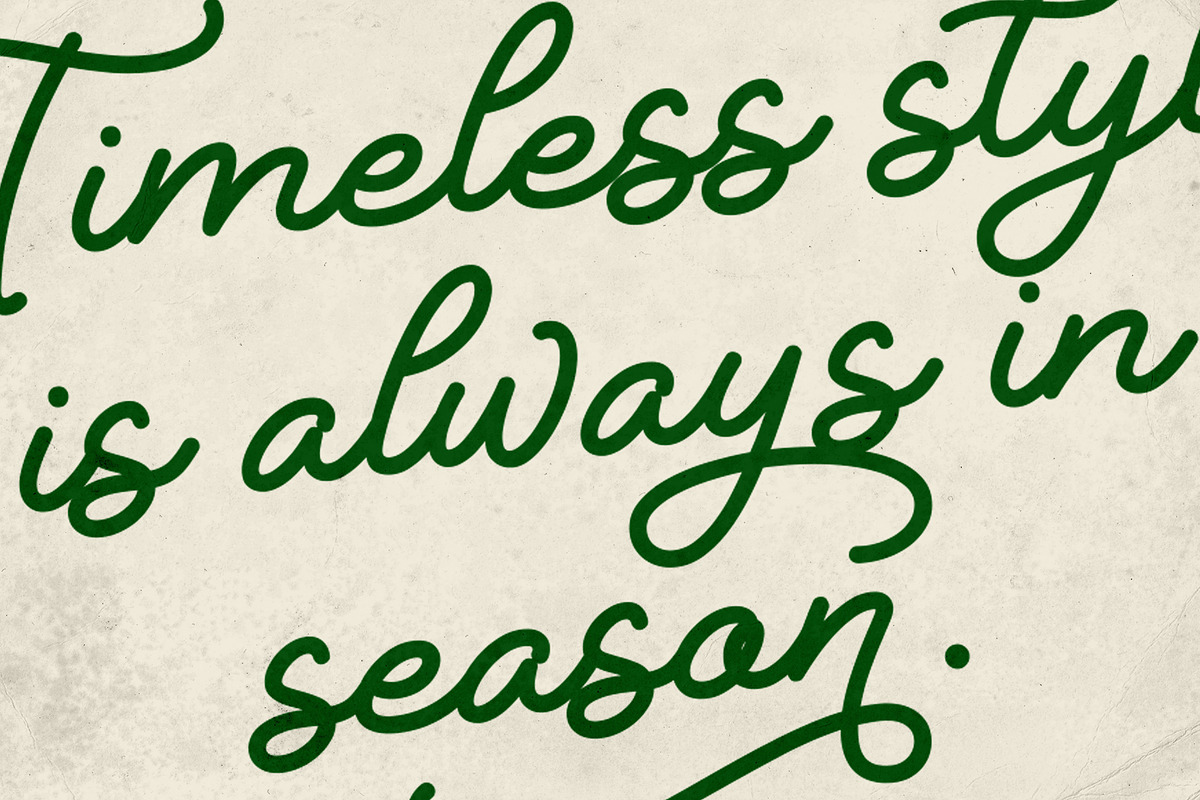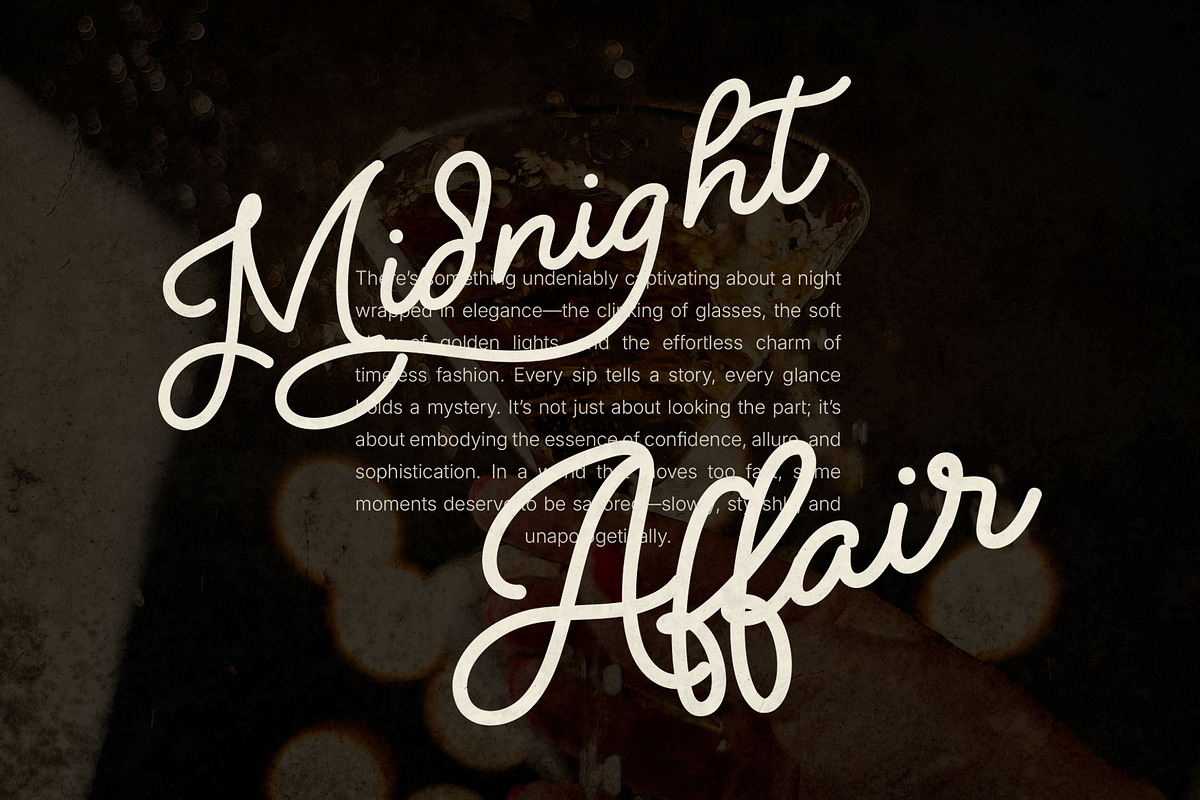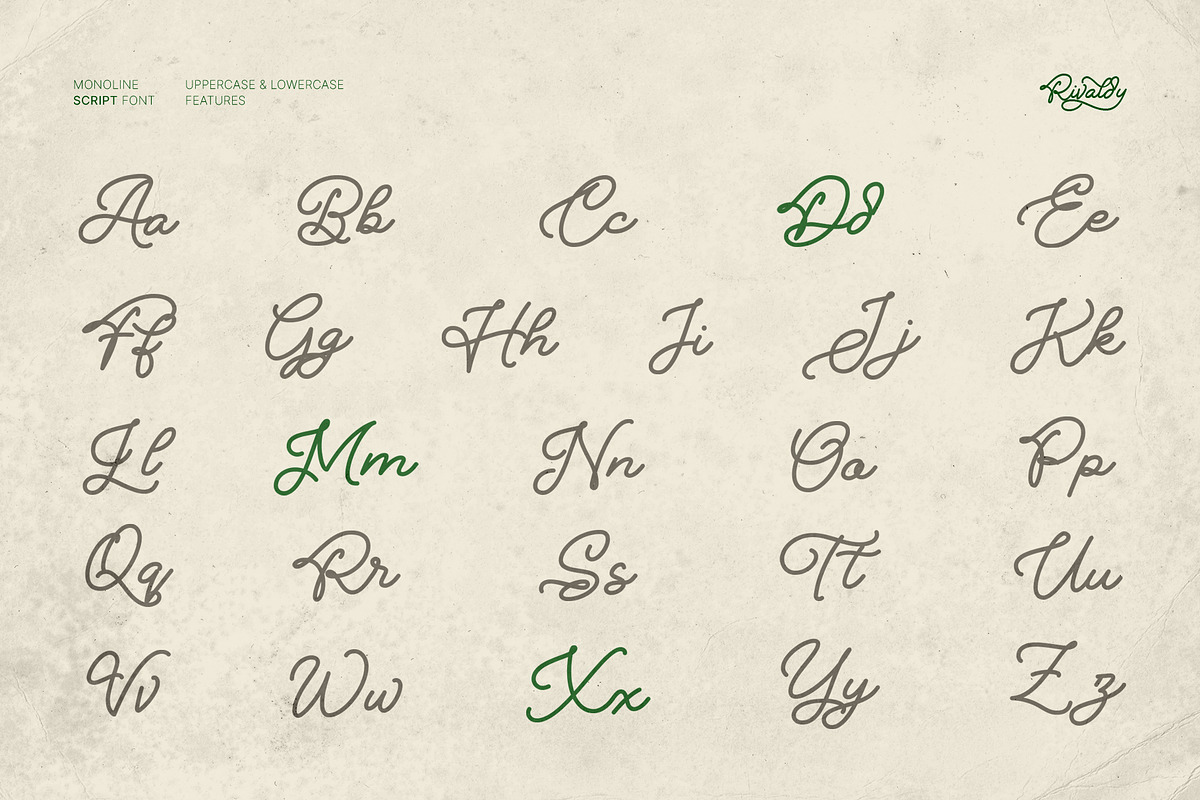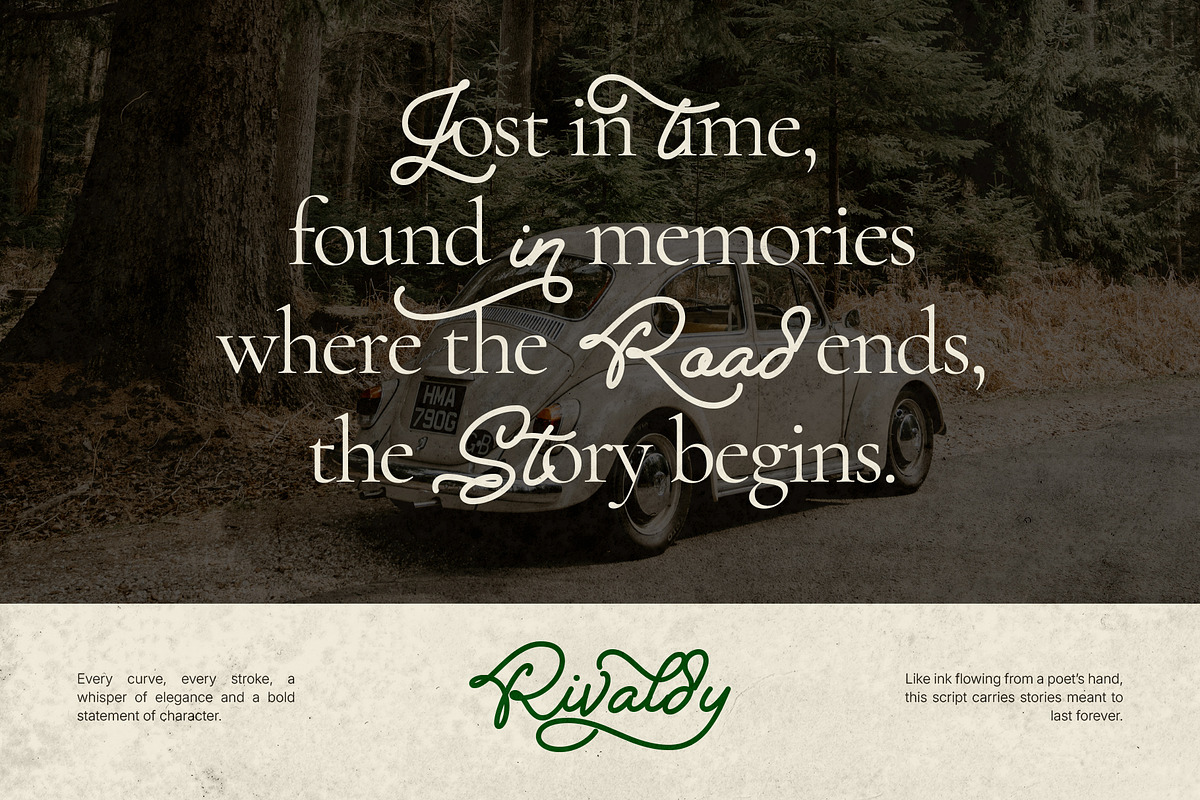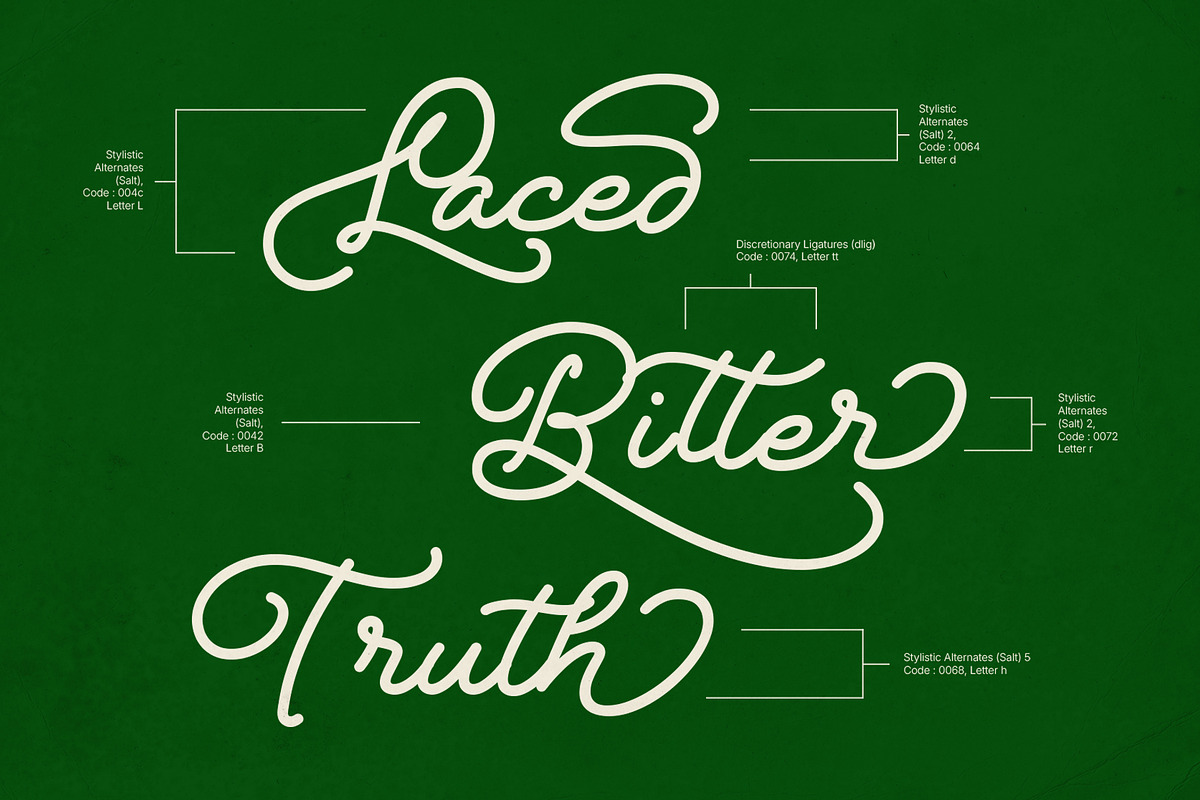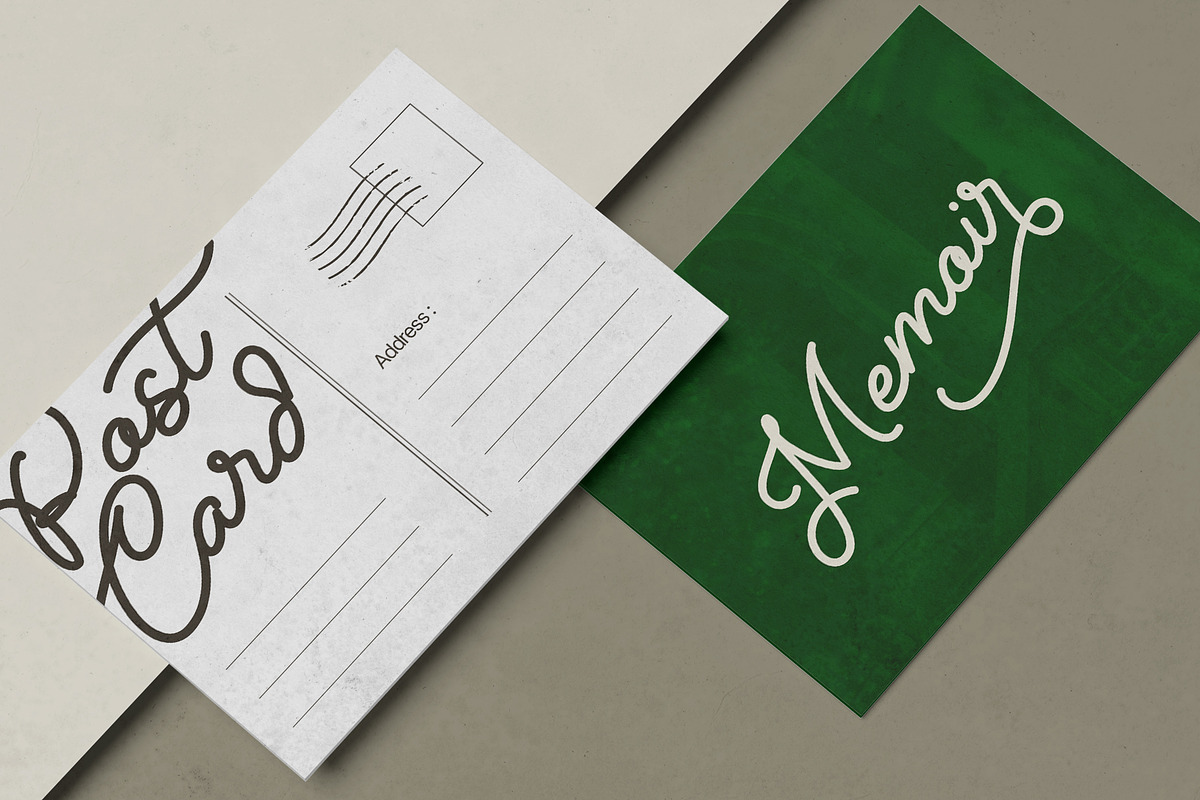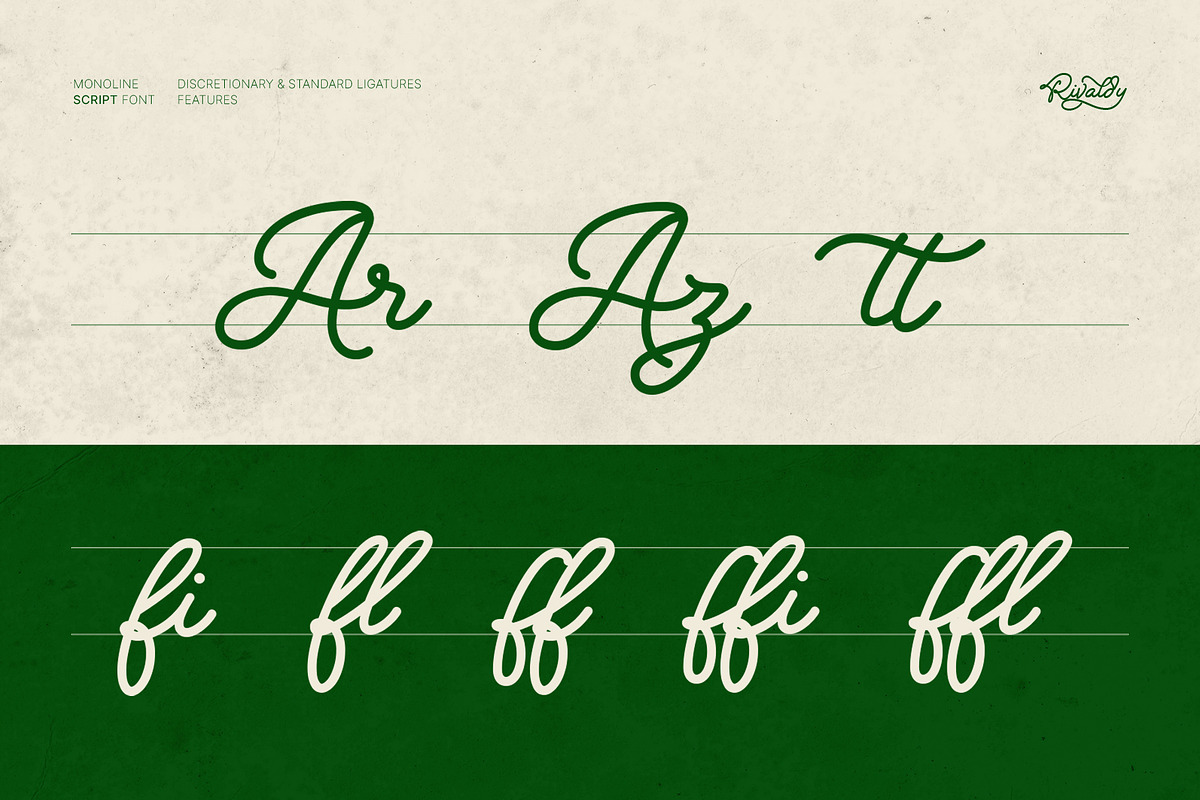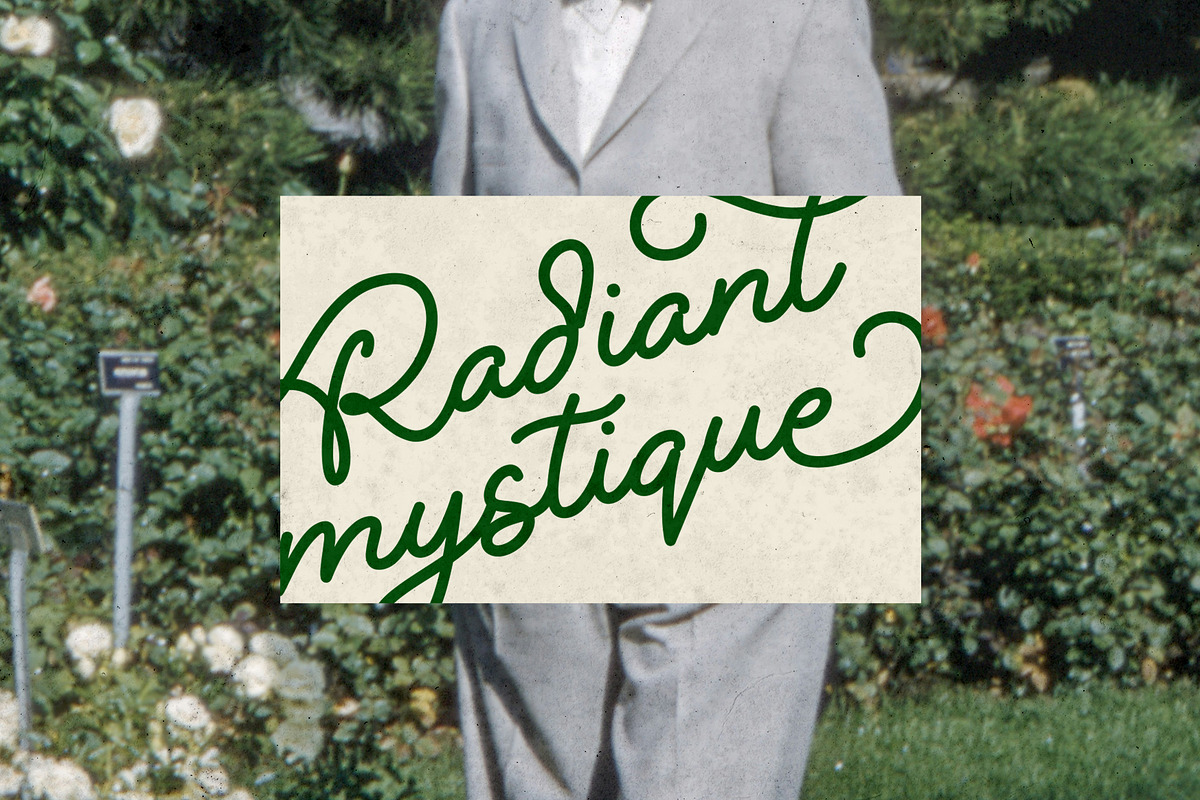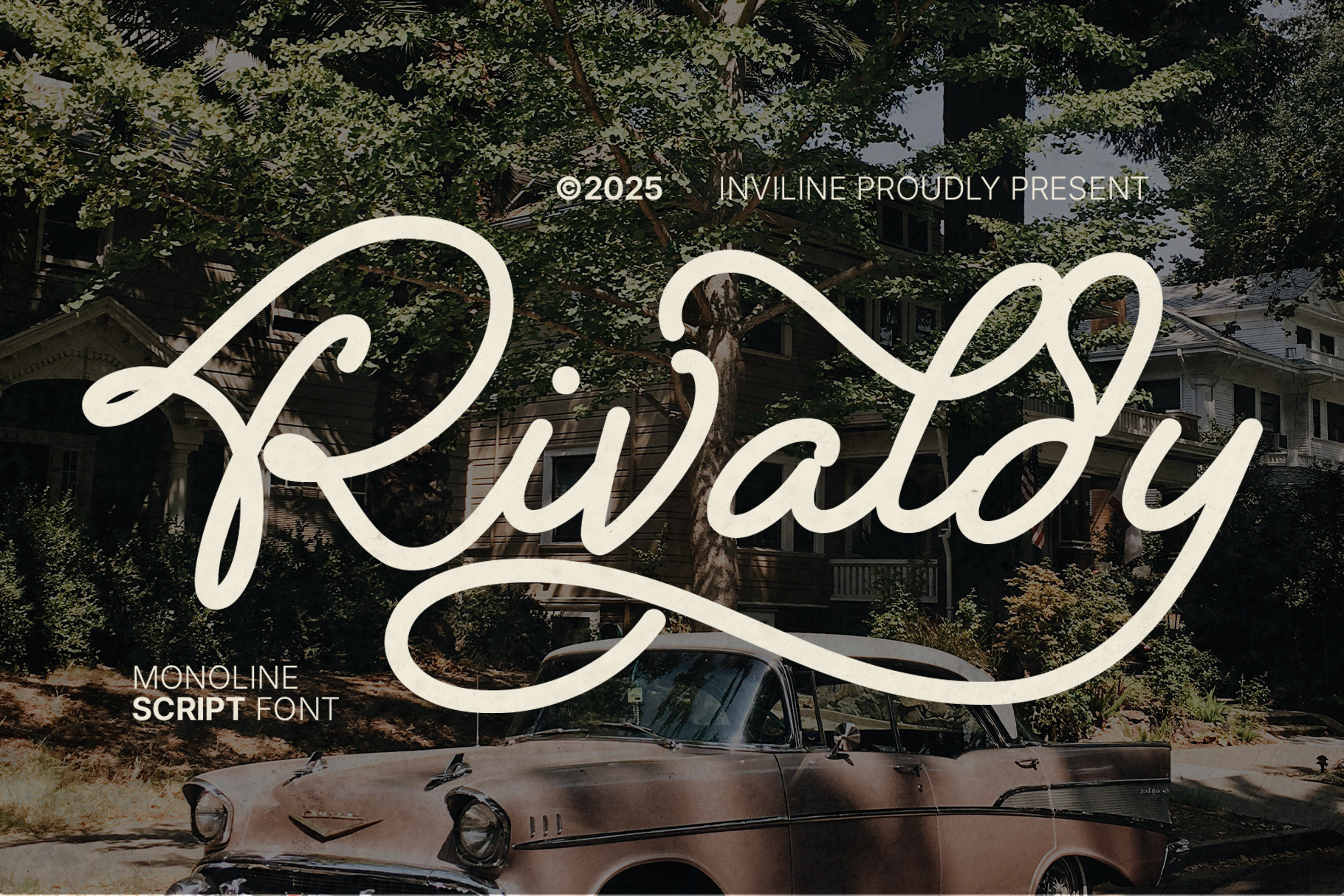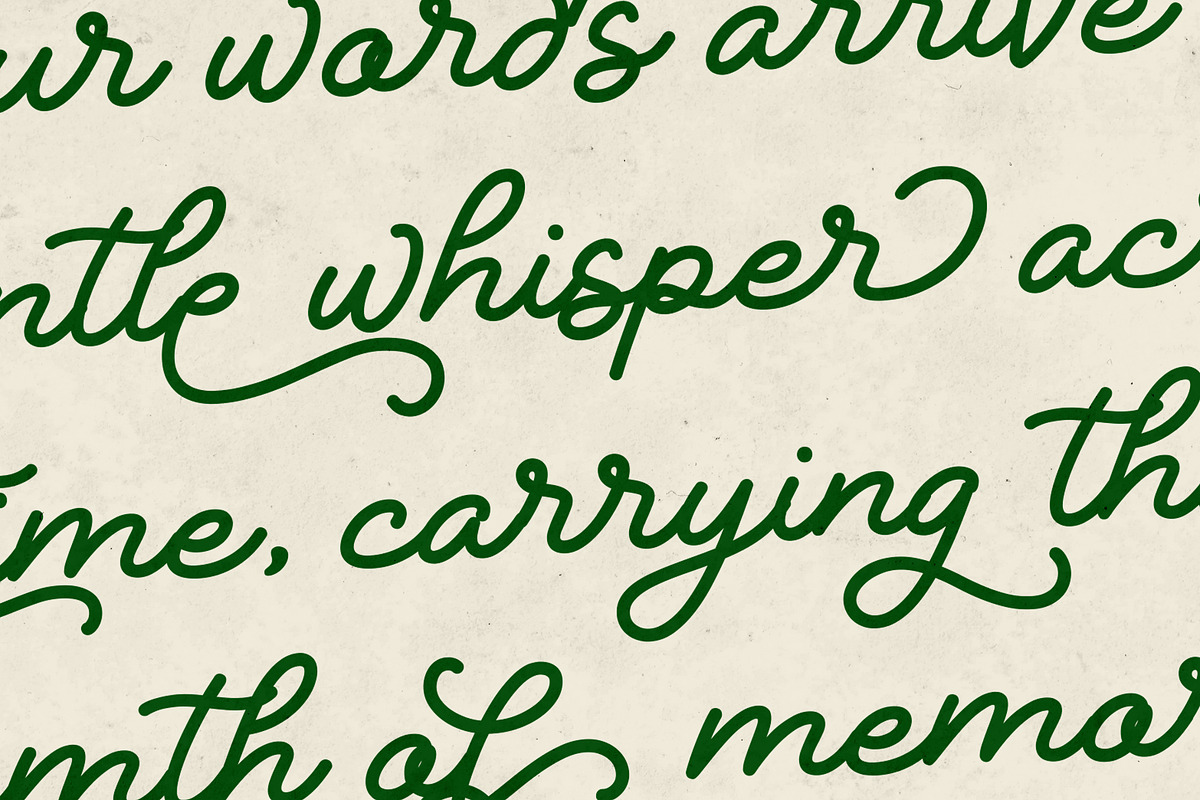
Rivaldy - Monoline Script Font
Introducing Rivaldy, a stunning Monoline Script Font that combines elegance and modern flair. With its smooth, flowing lines and unique character, Rivaldy is perfect for logos, invitations, and branding. Elevate your designs with the timeless charm of Rivaldy and make a lasting impression!
- Uppercase & Lowercase Characters: Fully designed for a complete typographic experience
- Numerals & Punctuation: All the numbers and punctuation marks you need for any design task
- Multilingual Support: Includes characters for multiple languages, ensuring global usability
- High-Quality Design: Each font is crafted with attention to detail, ensuring a polished and professional look